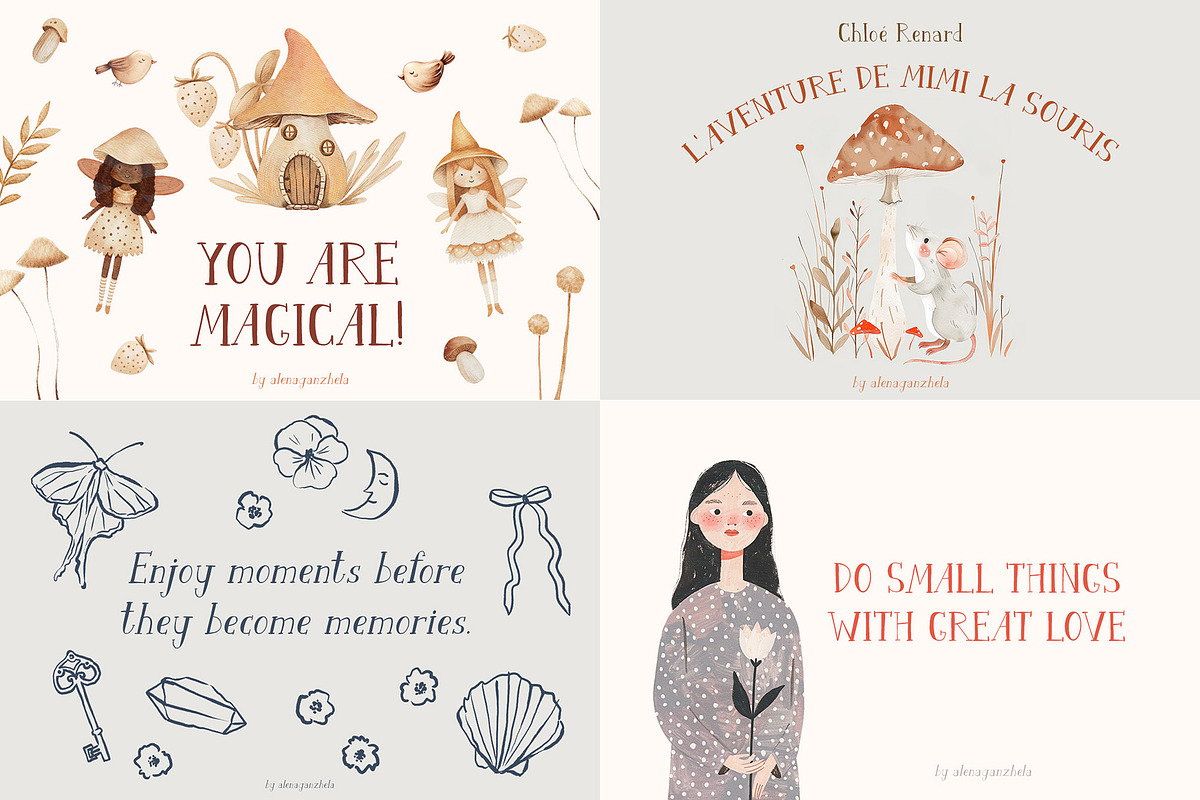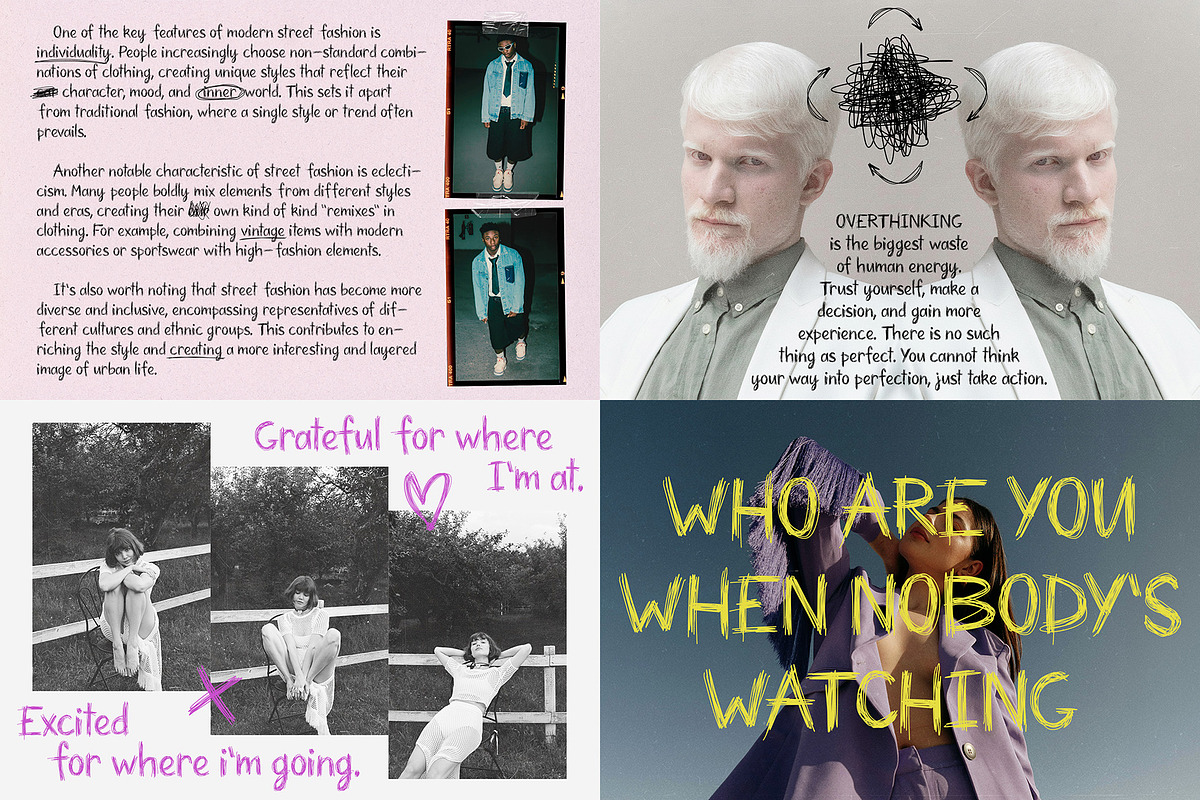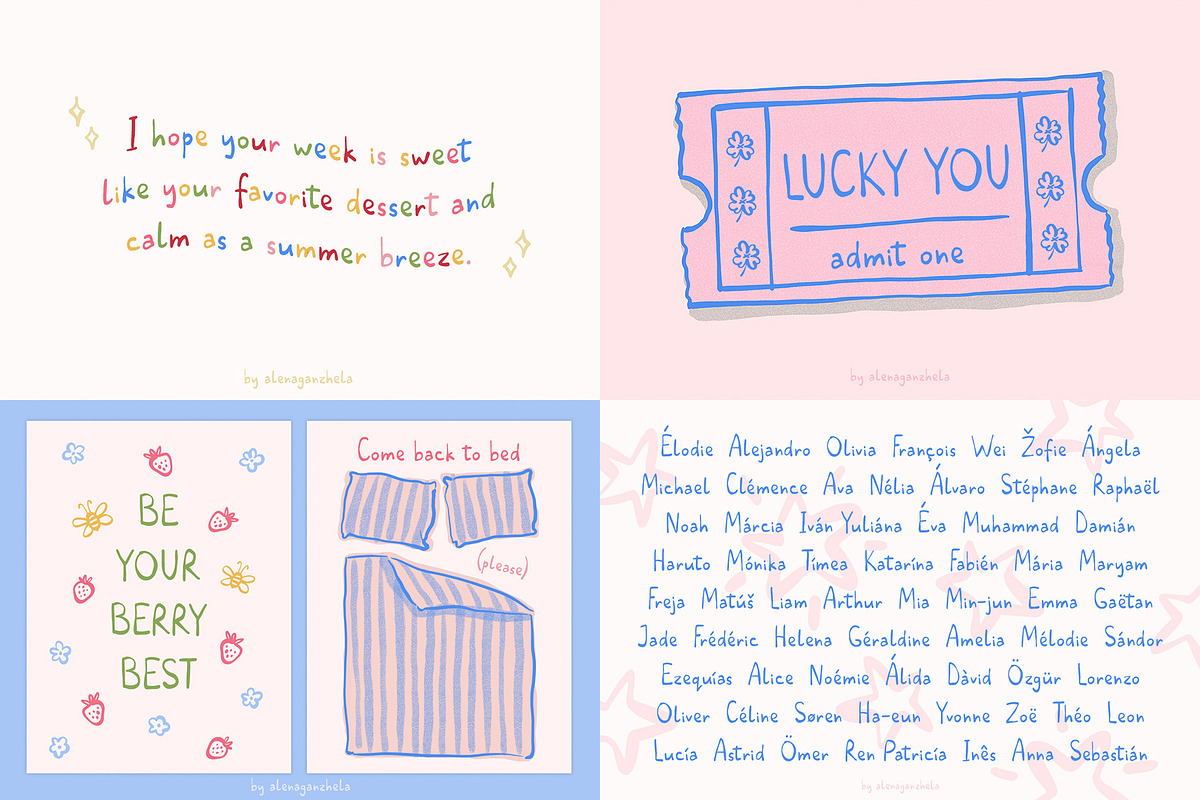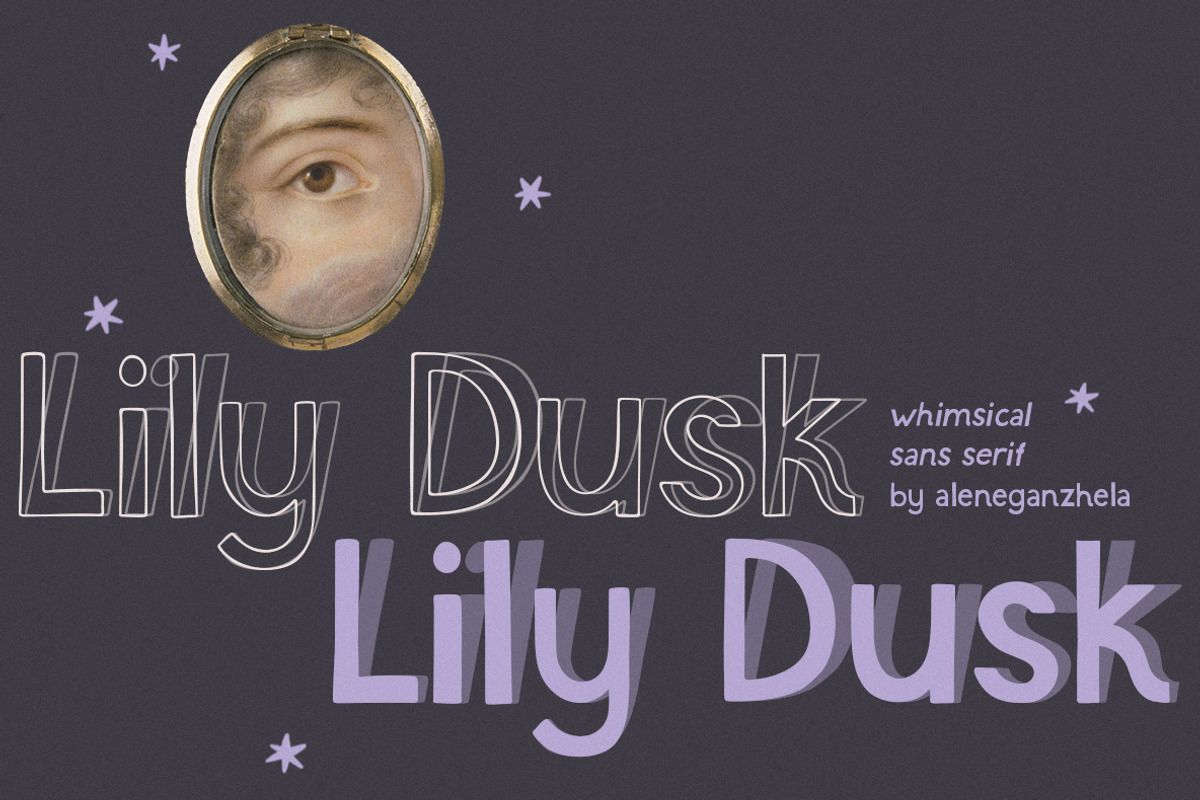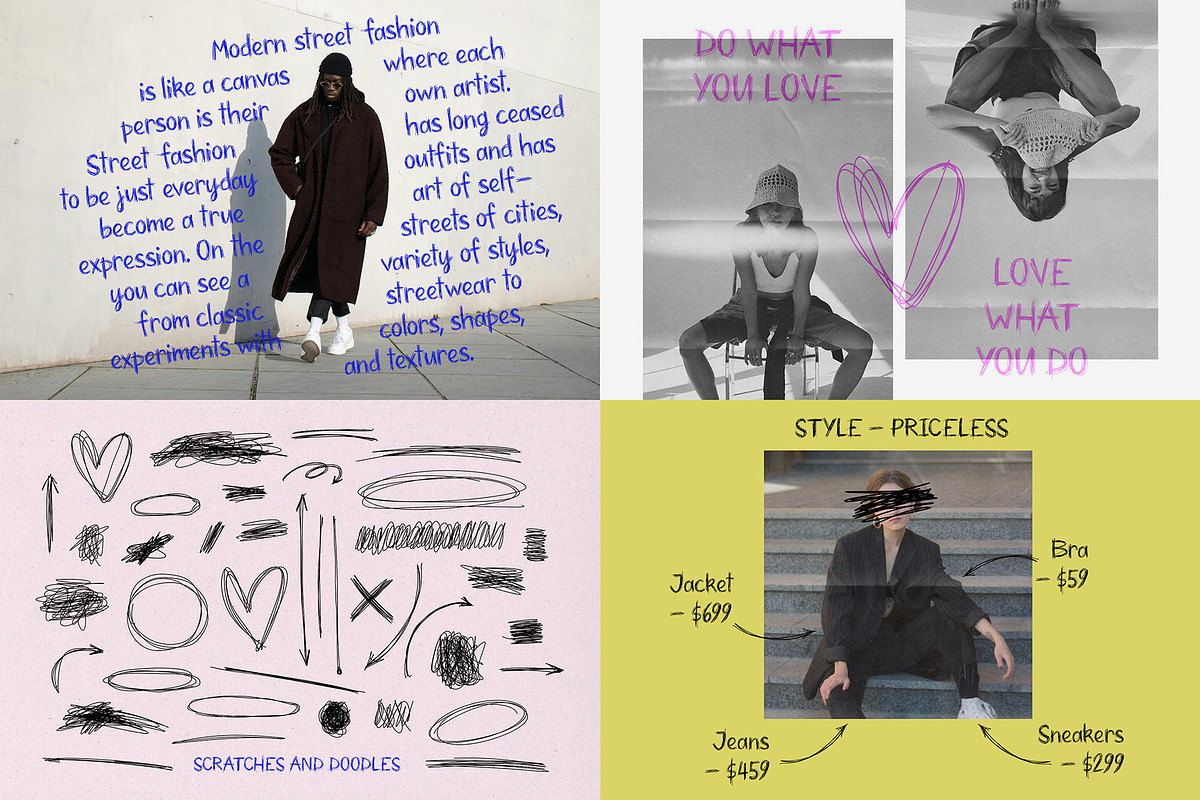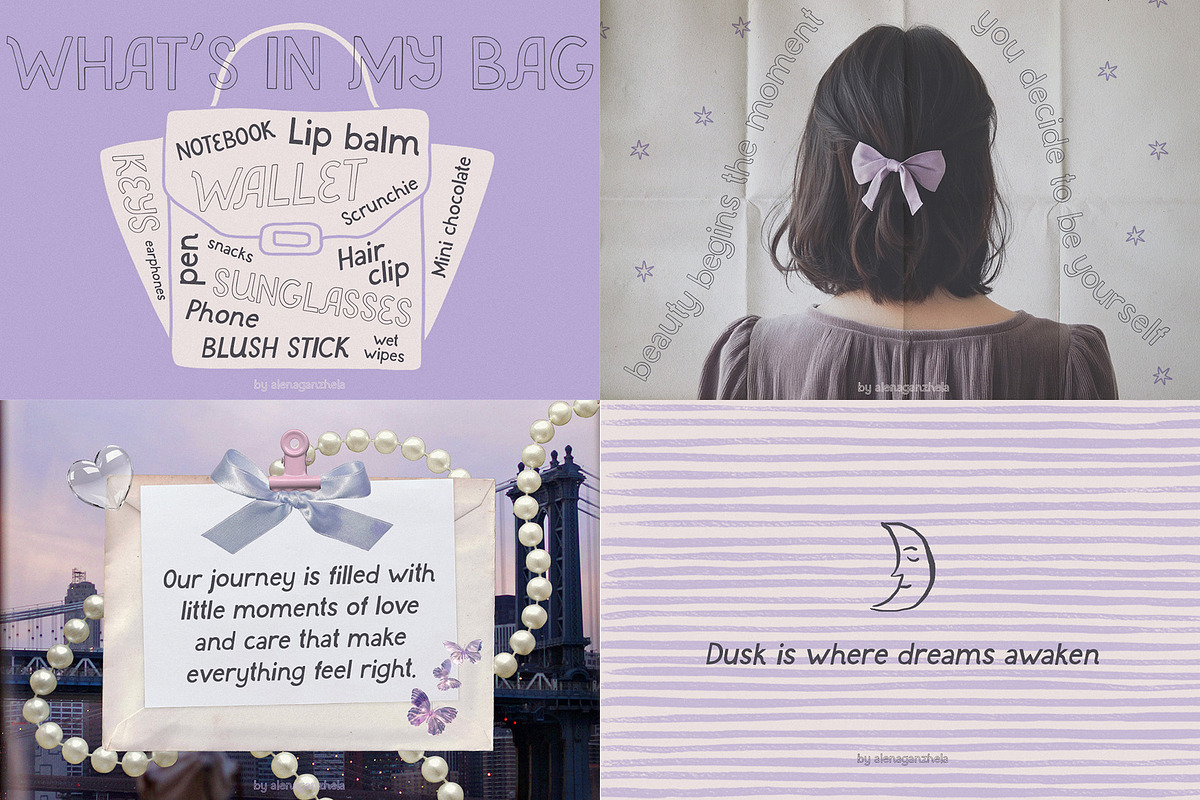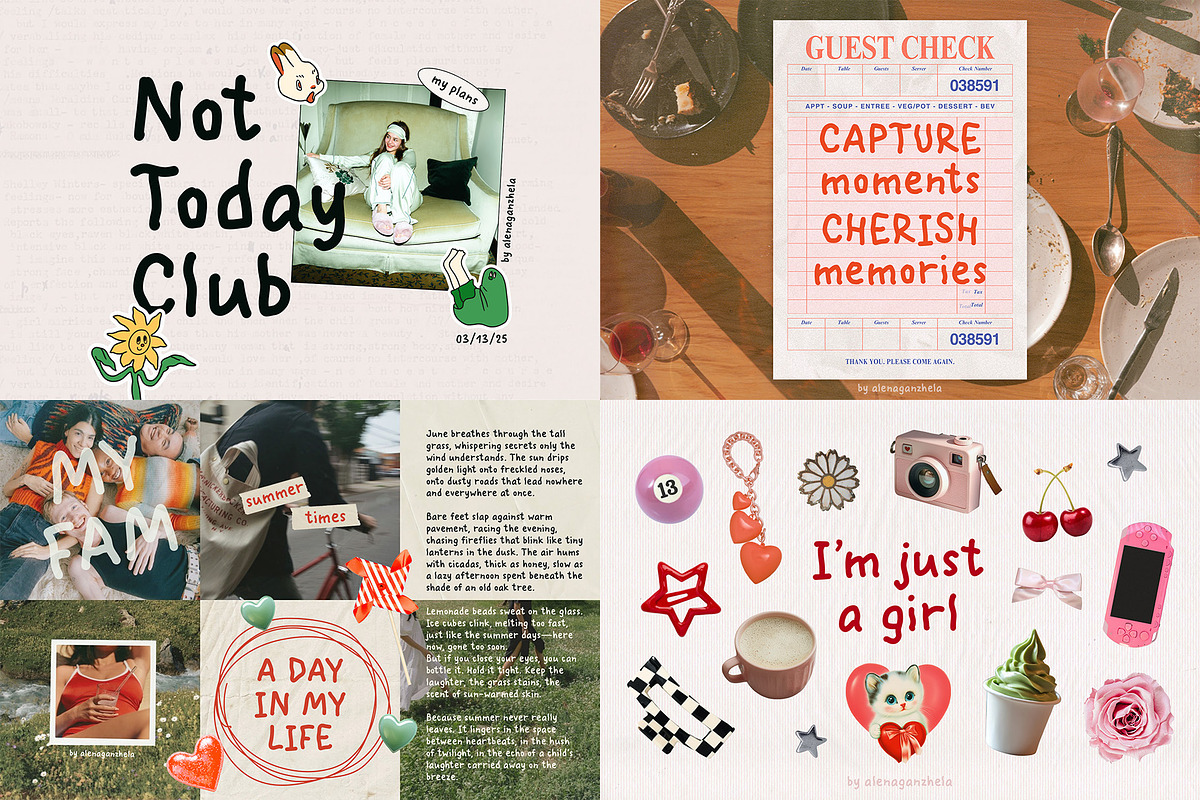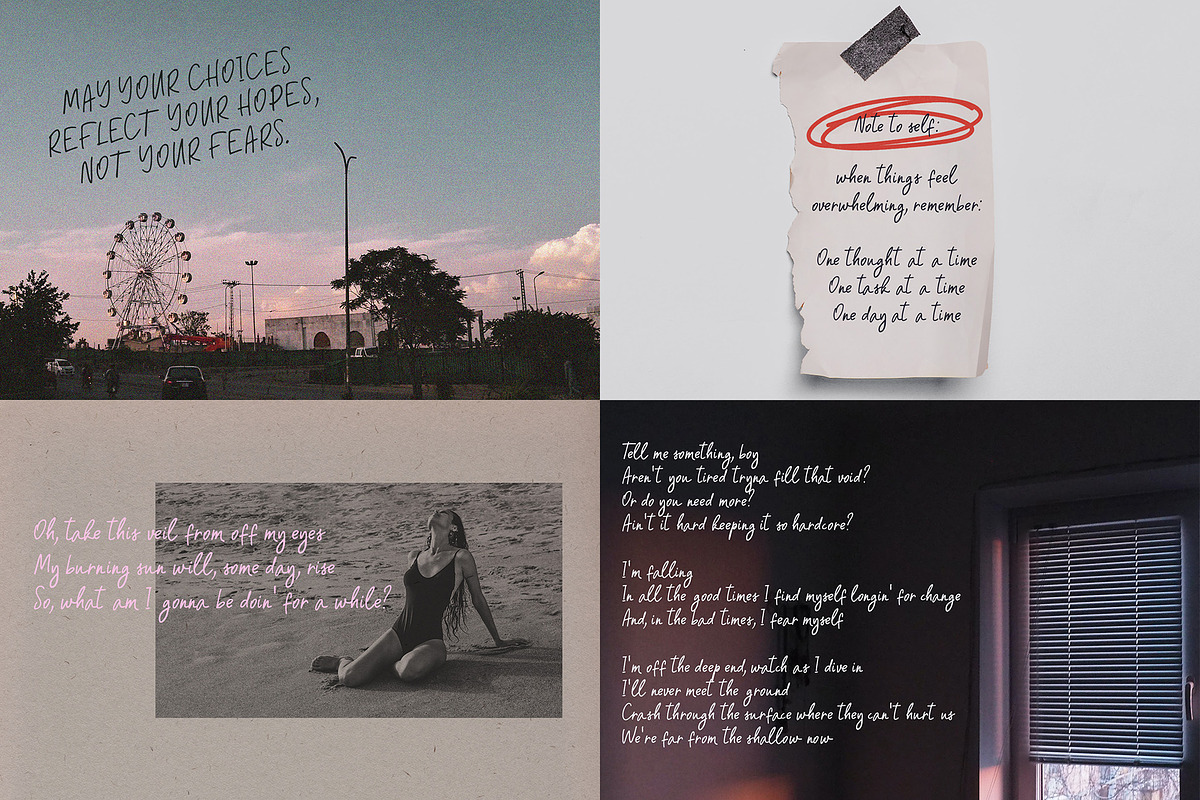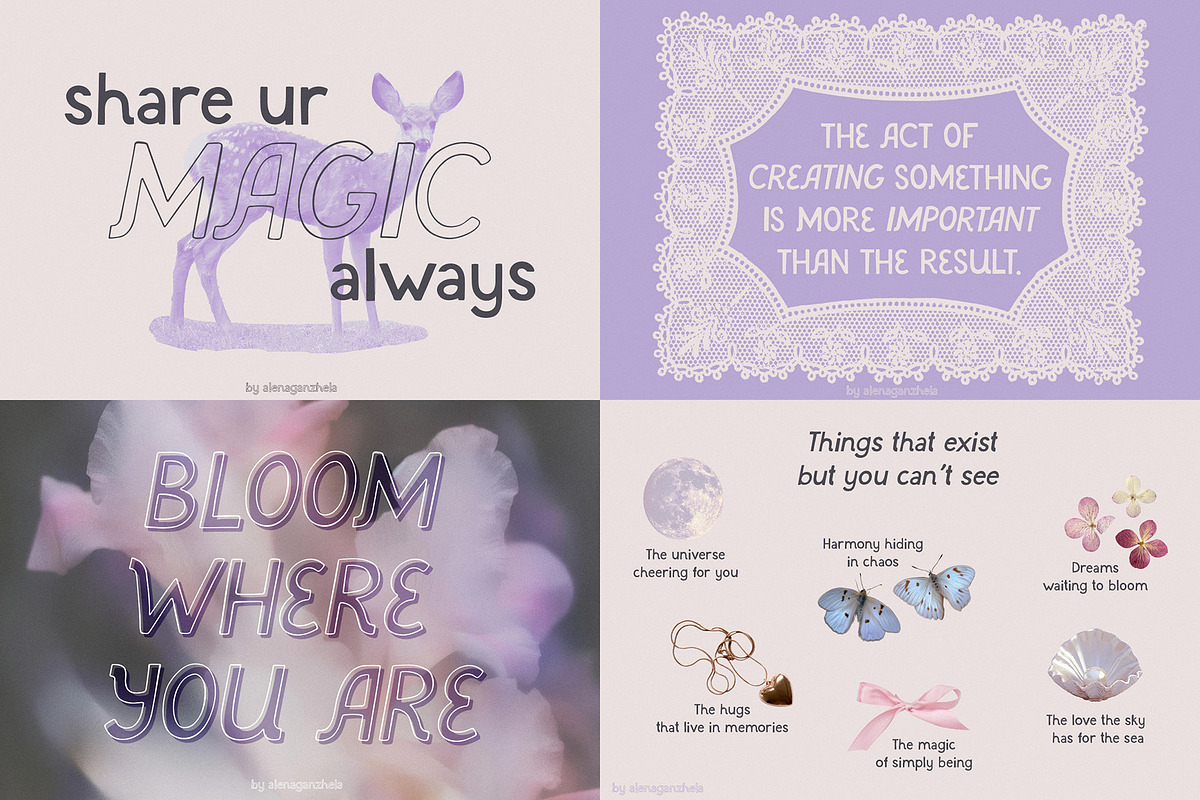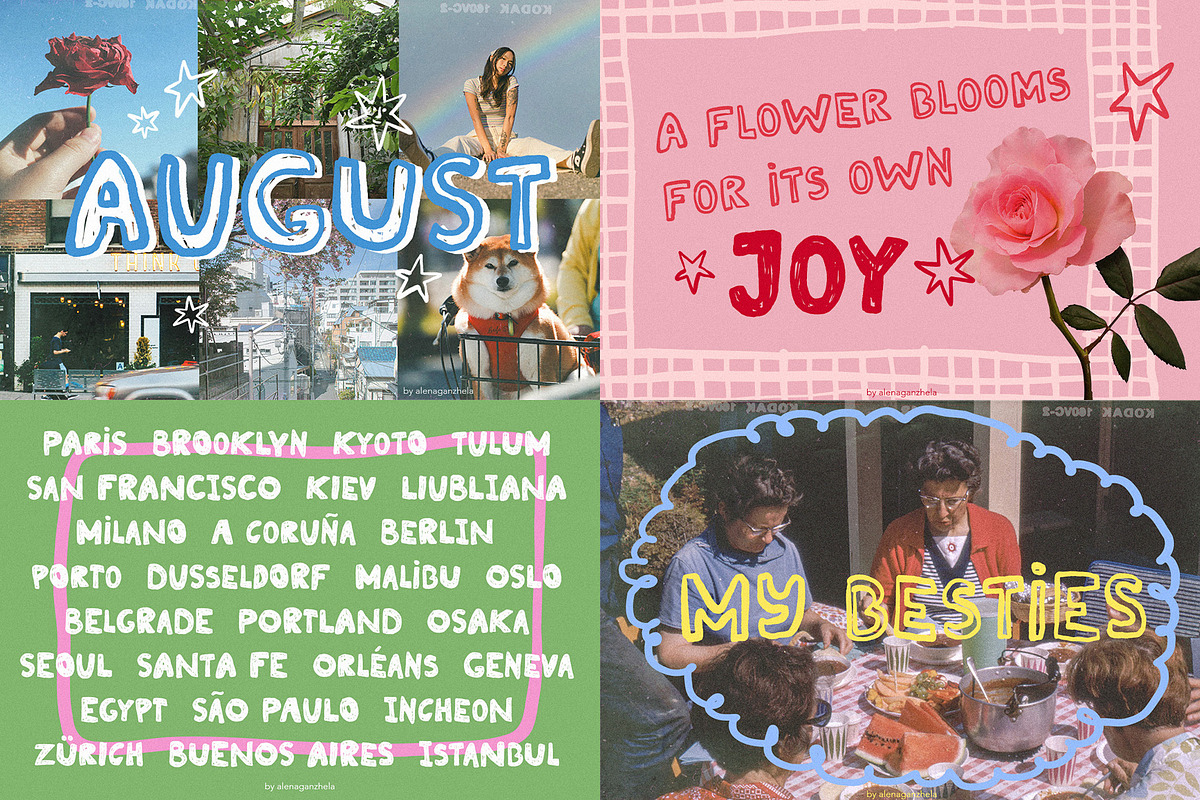
Handwritten FONT BUNDLE
Handwritten Font Bundle is a great collection of 8 unique handwritten fonts, crafted to bring warmth, personality, and playful energy to your creative projects. Bring playful charm and a handmade touch to your designs with the Handwritten Font Bundle. This collection features 8 trendy handwritten fonts - from casual scribbles to whimsical display styles - perfect for art prints, branding, packaging, social media, stationery, and creative projects.
- LAZY CRUNCH - https://crmrkt.com/9Gq5jJ
- LUCKY BERRY - https://crmrkt.com/dl59gk
- AURORA LANE - https://crmrkt.com/De4RP4
- LILY DUSK - https://crmrkt.com/lM5y3l
- EASY PEASY - https://crmrkt.com/NegNRk
- SASSY CHARM - https://crmrkt.com/Mmew0P
- FEISTY - https://crmrkt.com/X6NxGl
- MARMELLY - https://crmrkt.com/EejqJ5